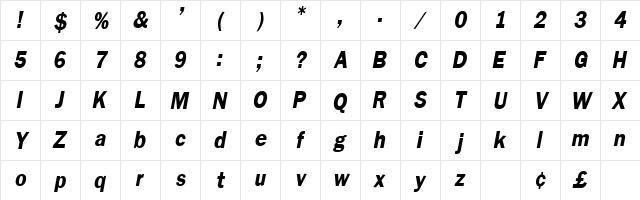
PatellaCond Oblique
Design Context for PatellaCond Typeface
PatellaCond is a composed and adaptable typeface that performs quietly and consistently across a wide range of design contexts. The slanted form adds forward momentum and visual energy. The condensed width makes it efficient for tight spaces without sacrificing legibility.
Pro Tip: Use PatellaCond for emphasis, pull quotes, and subheadings where its slanted energy can add rhythm to the layout.